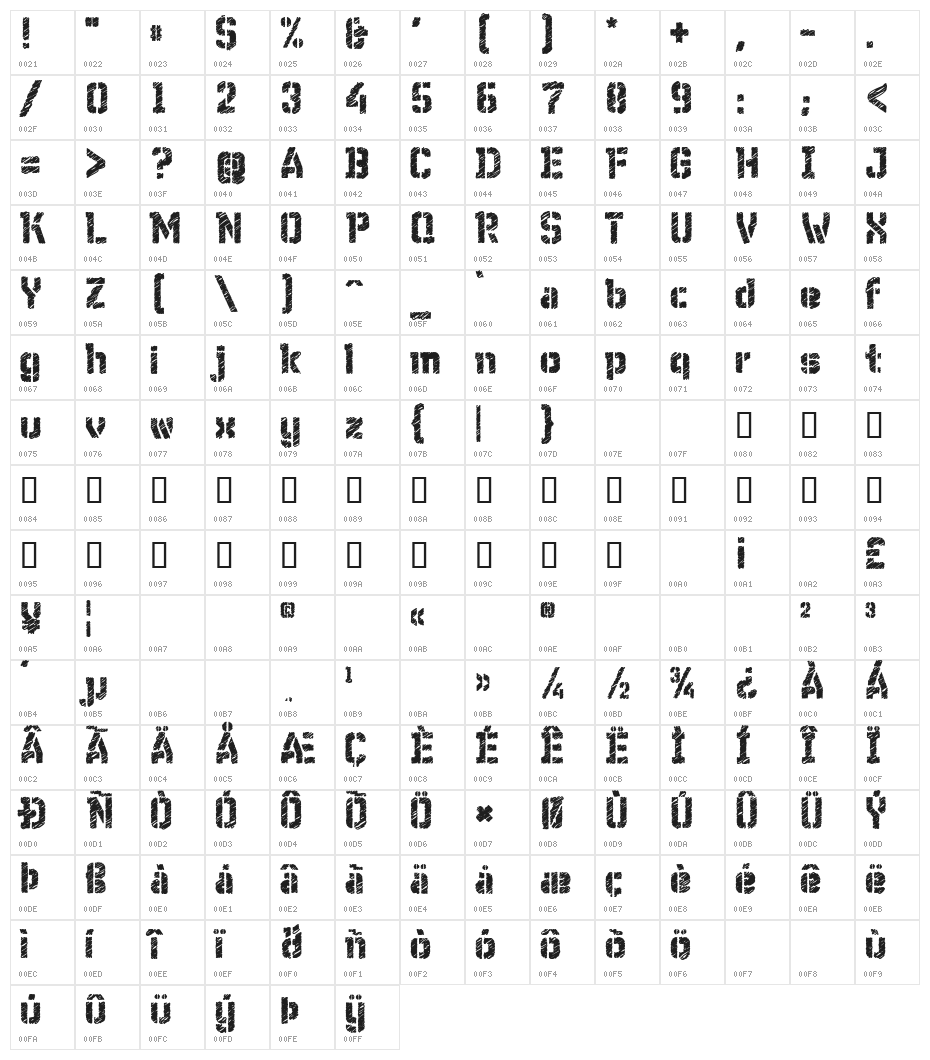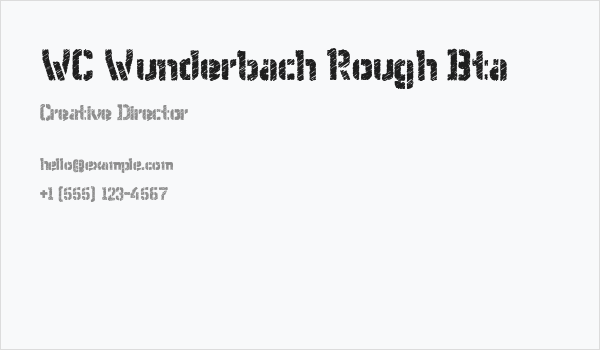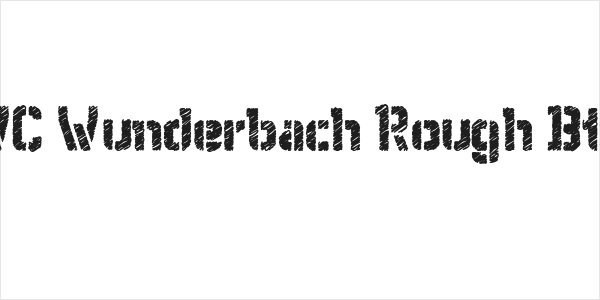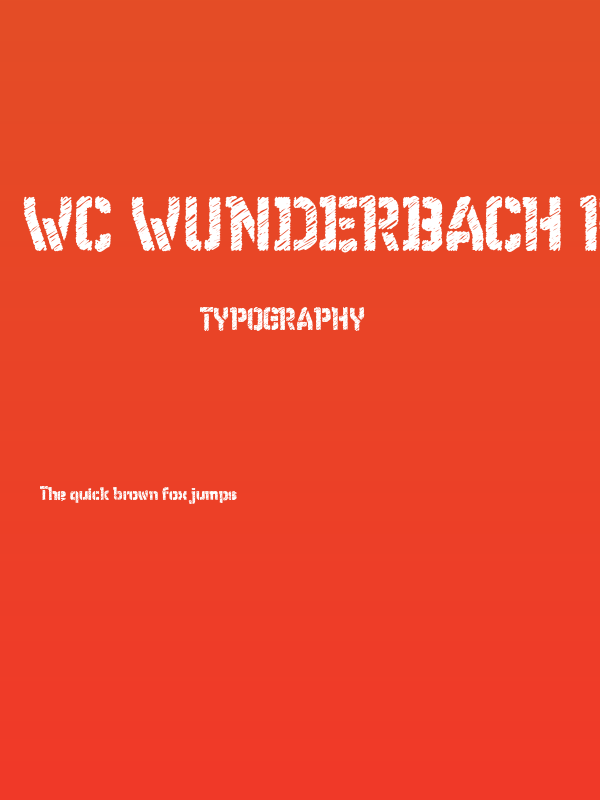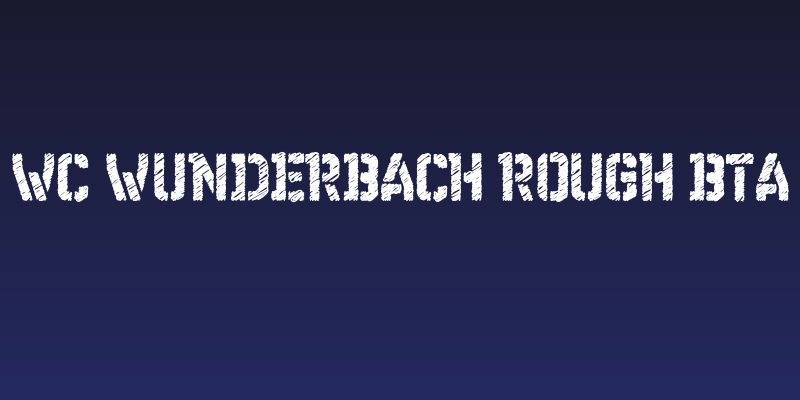
WC Wunderbach Rough Bta Font
WC Wunderbach Rough Bta Description
This font features a bold, textured design that gives it a rough, hand-drawn appearance. Each character is filled with diagonal lines that create a dynamic, energetic feel. The uppercase and lowercase letters maintain a consistent style, with a slightly condensed width that enhances its boldness. Numerals and special characters follow the same textured pattern, ensuring uniformity across all glyphs. The font's rugged style makes it ideal for projects that require a strong, impactful visual presence.
| Proposed Projects | Ideal for posters, album covers, branding materials, and any design that requires a bold, eye-catching typeface. |